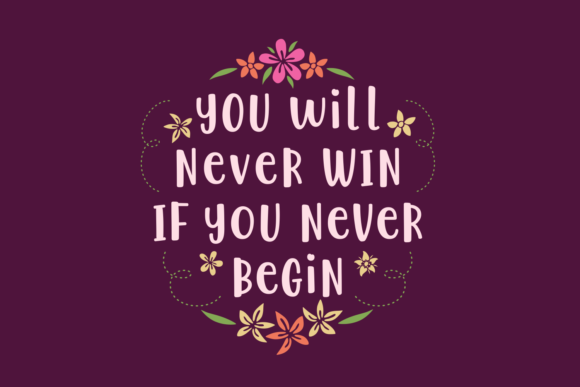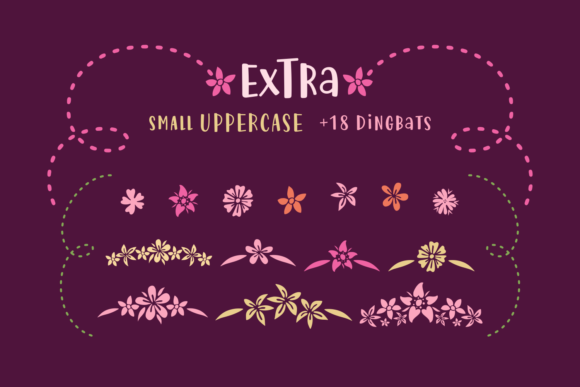
Cute Be Special Font
About Cute Be Special Font
Cute Be Special is a cute script typeface. It includes beautiful flourish ornaments that will make your designs cuter than ever!